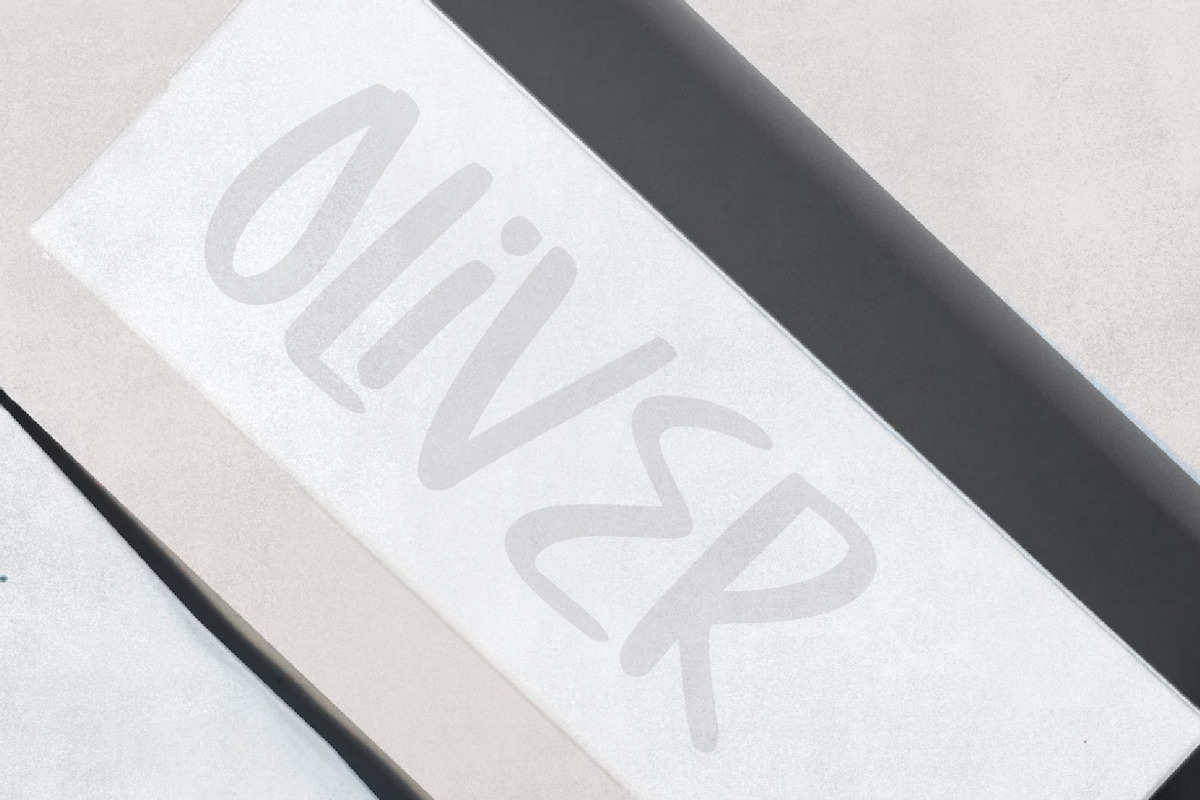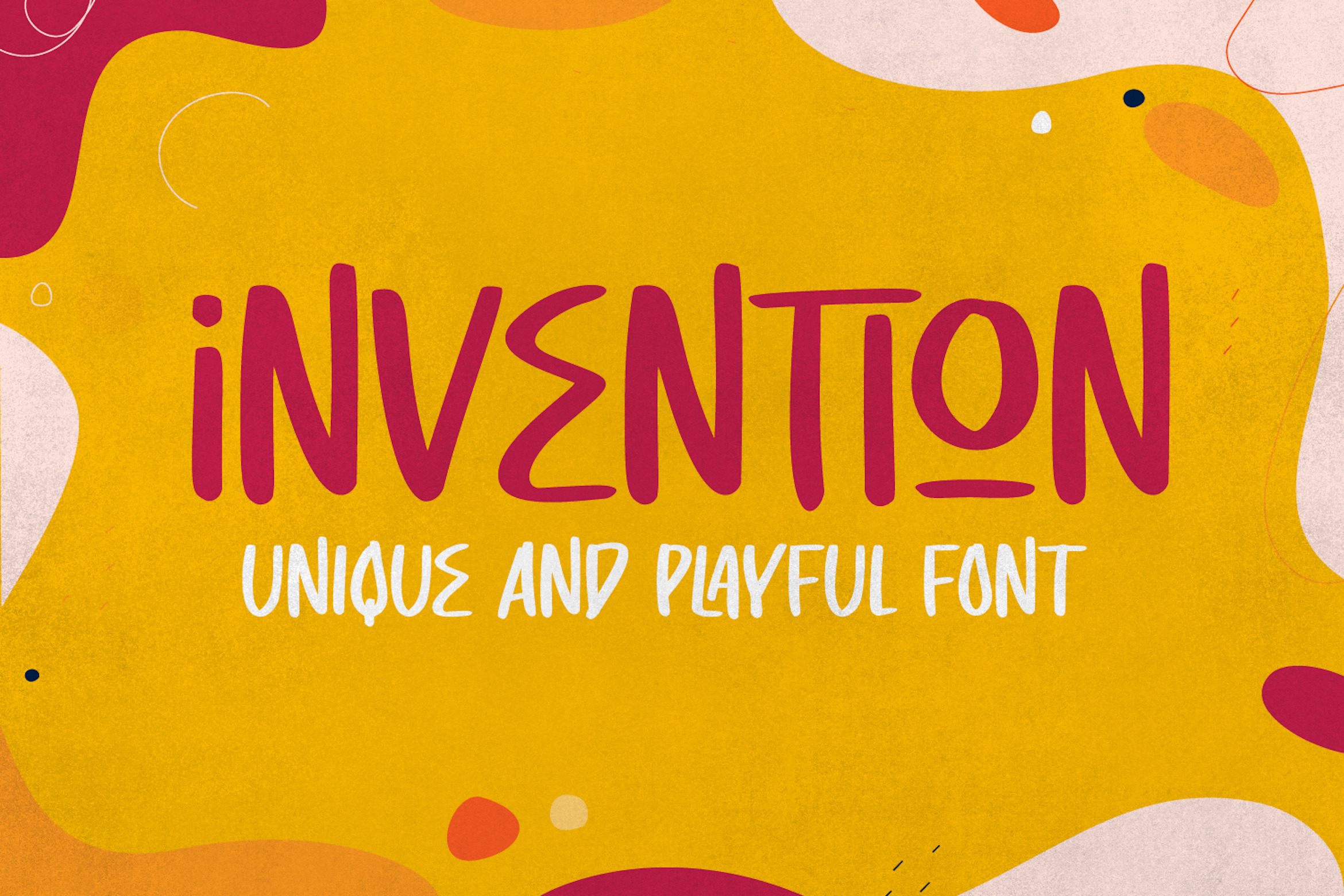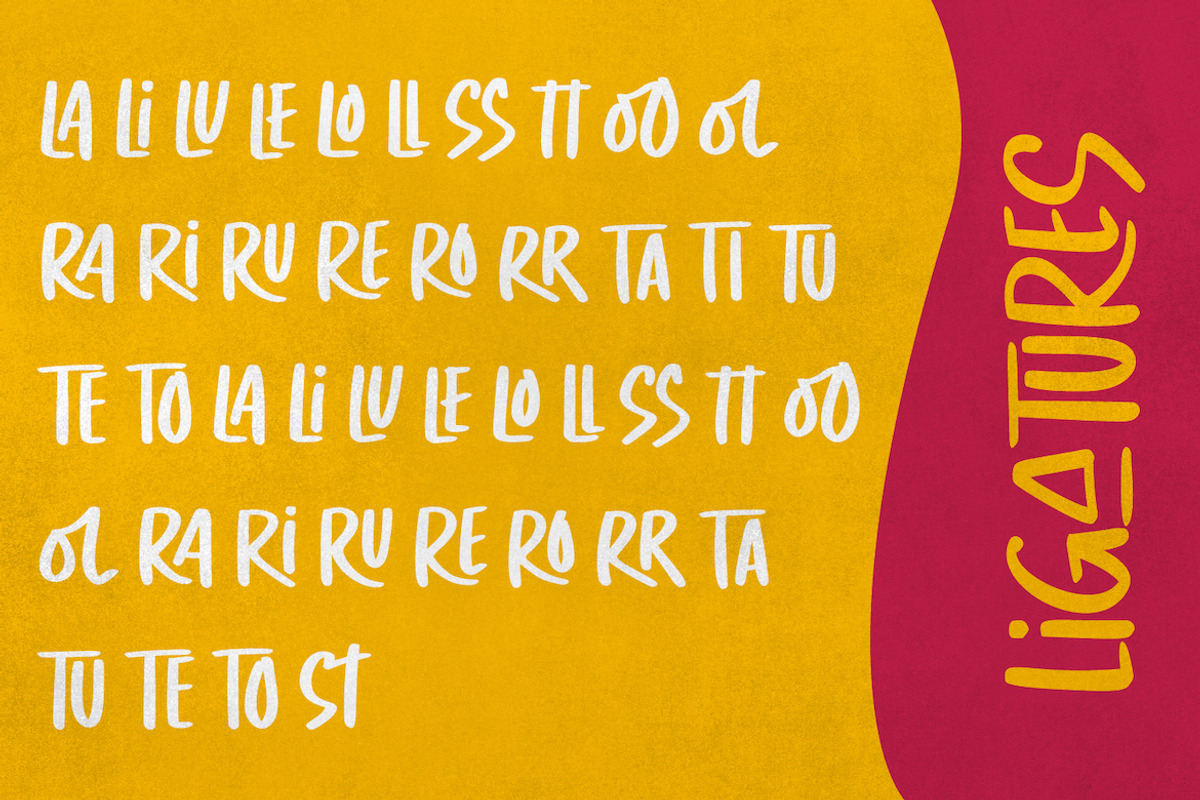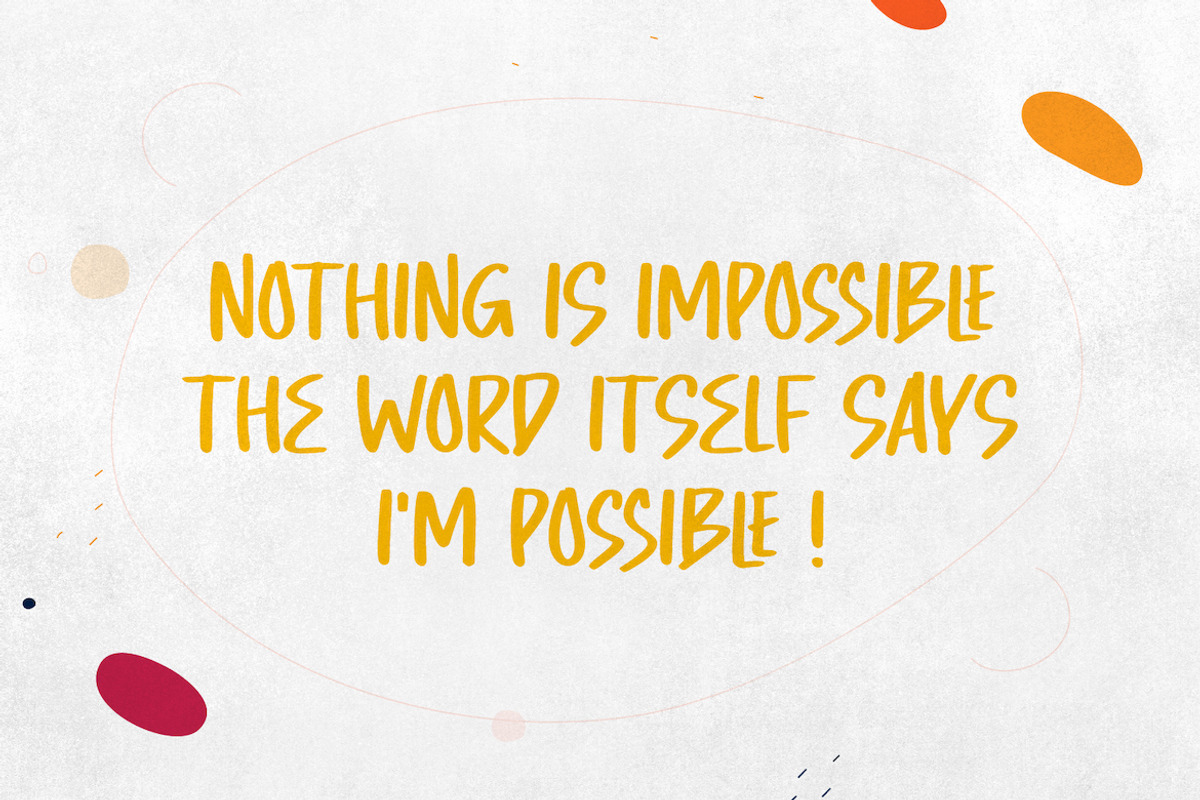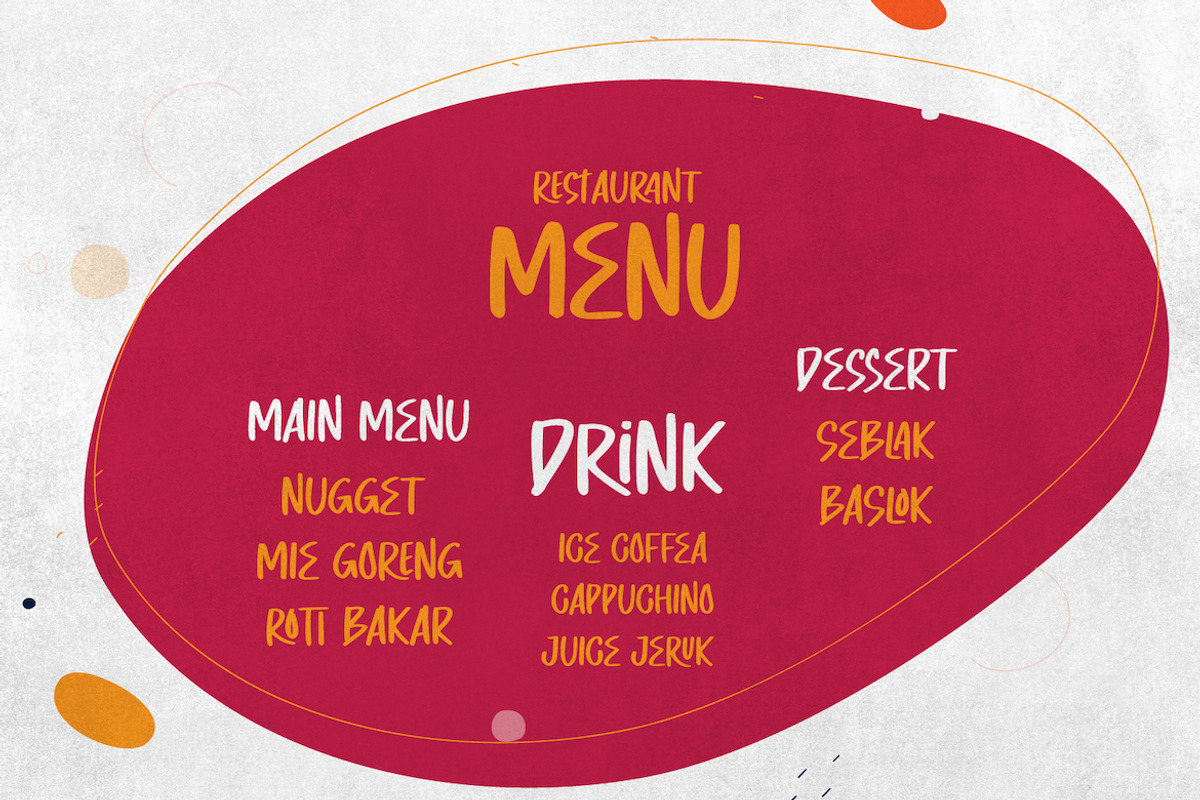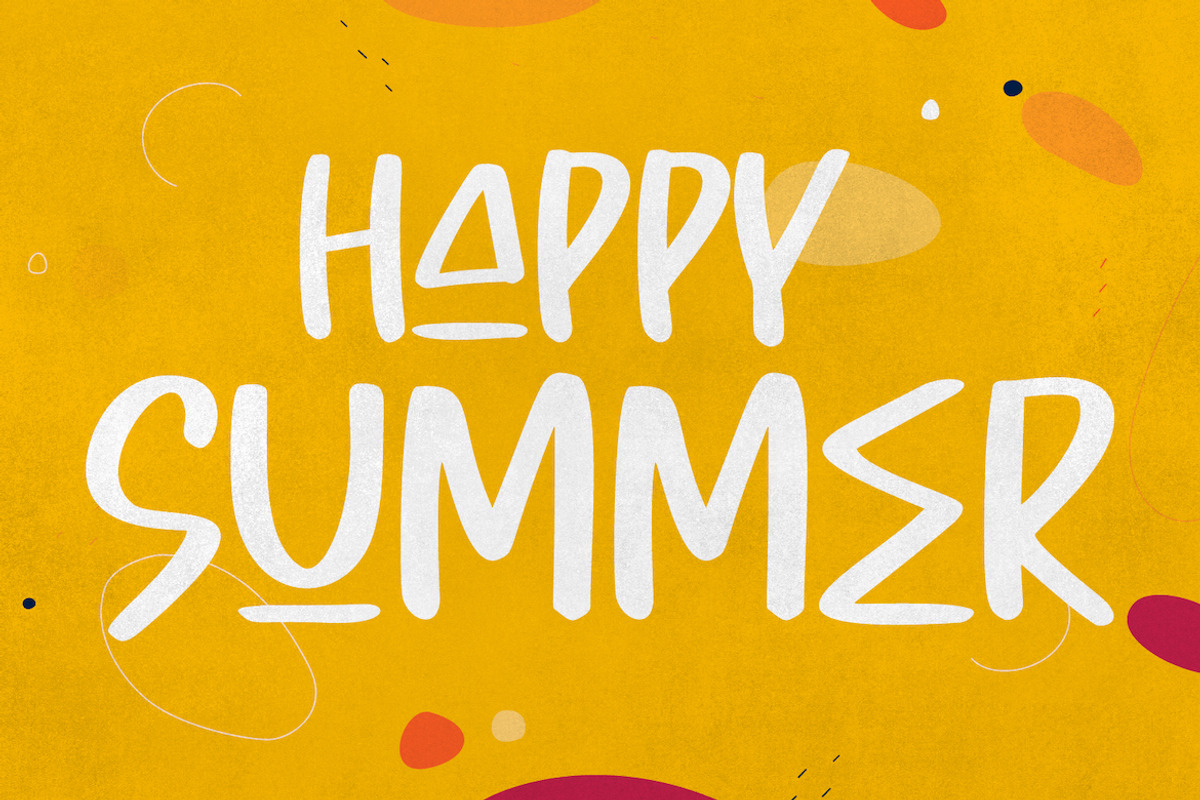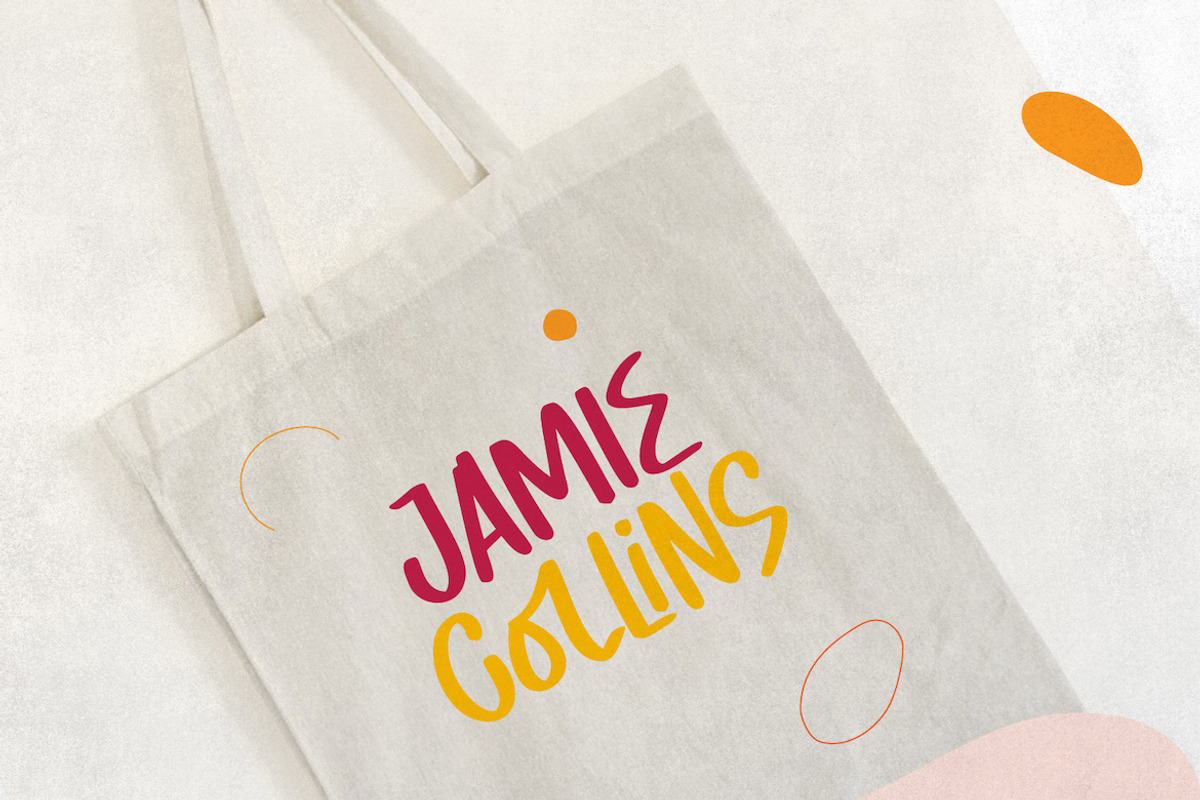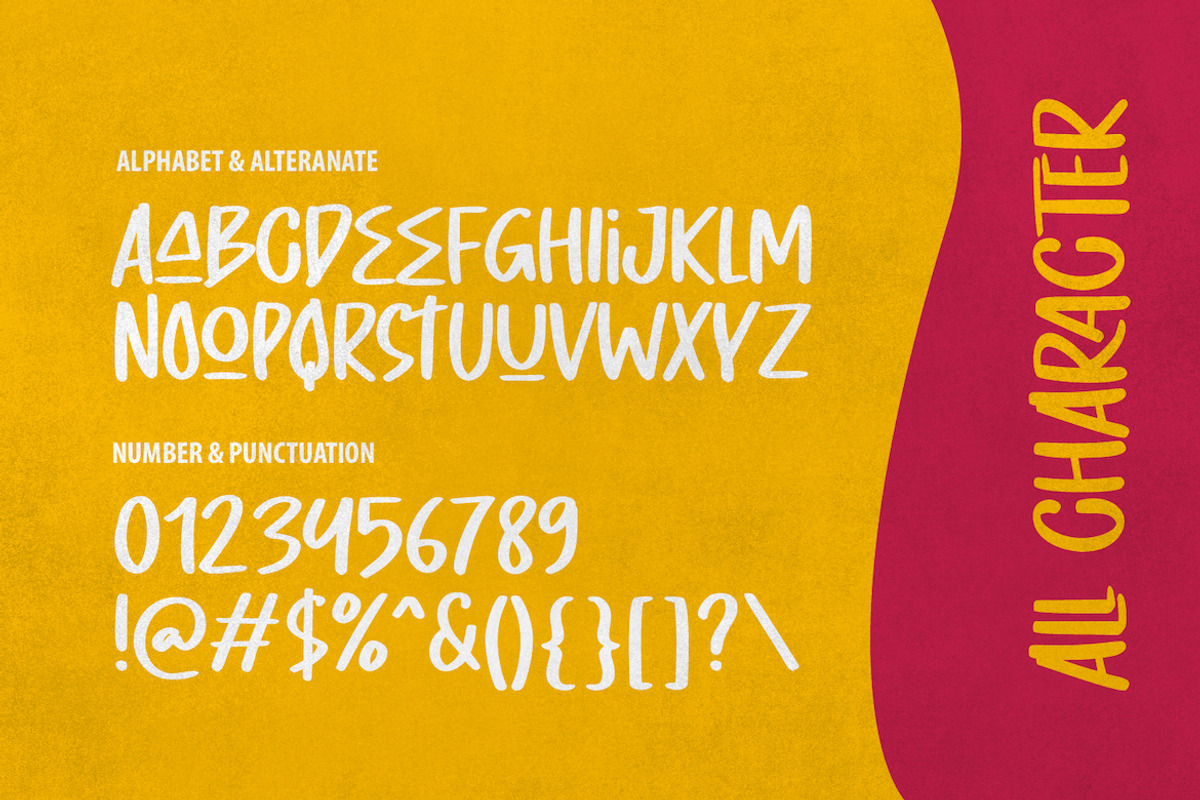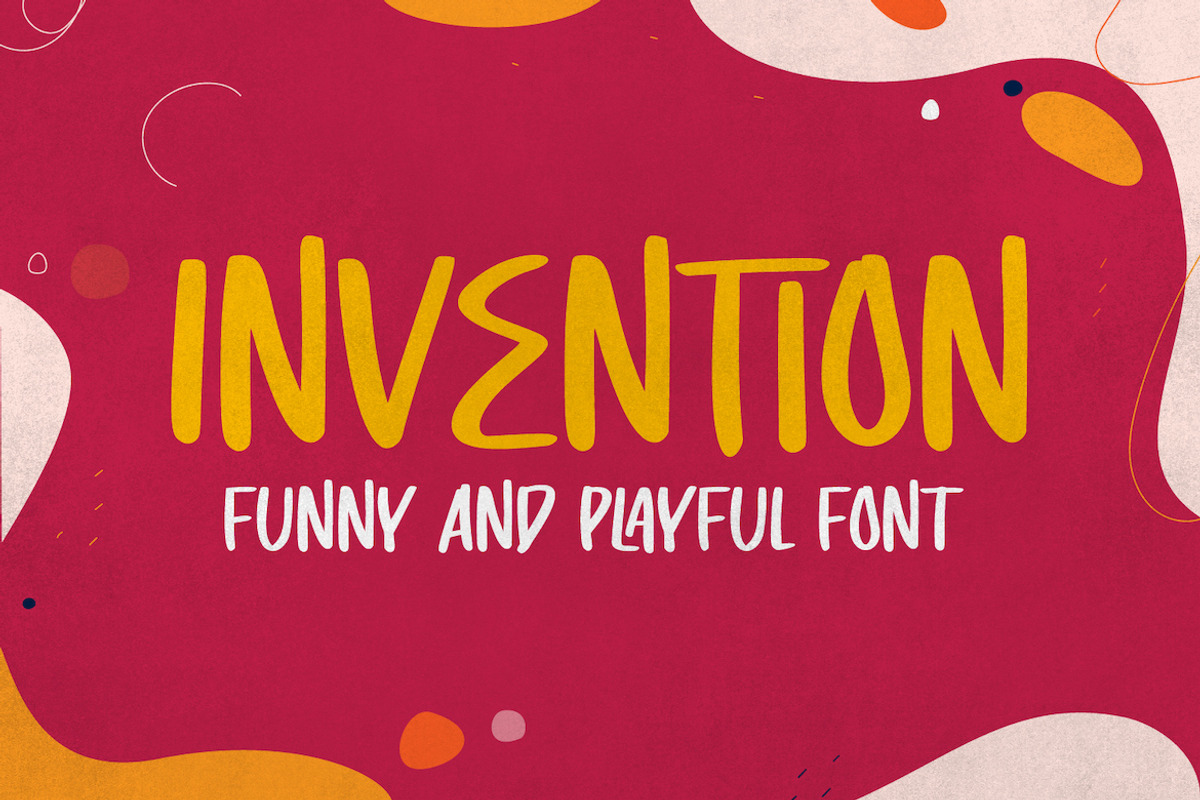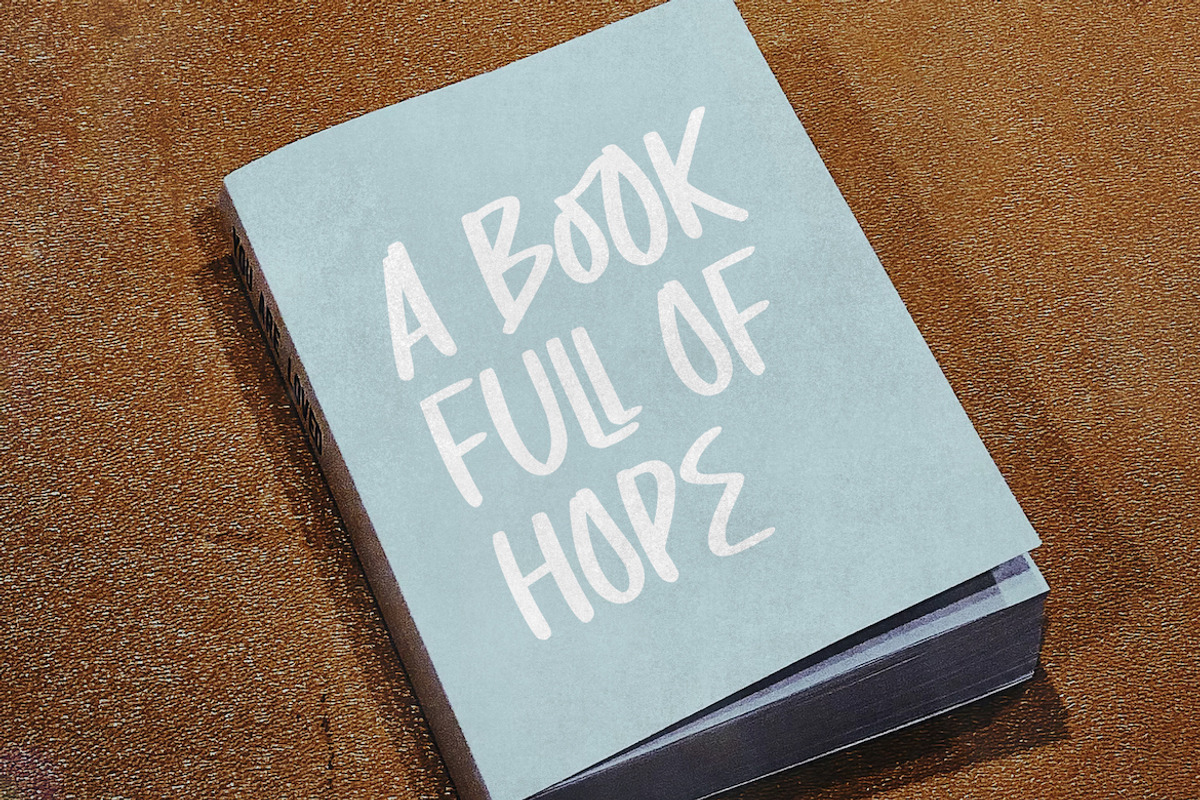
Invention - Unique Display Font
Introducing Invention Font, a truly unique and powerful display font that will make your designs stand out. With its distinctive style, Invention adds a touch of creativity and originality to your projects. This font is perfect for making a bold statement and capturing attention. With both uppercase and lowercase letters, numbers, and punctuations, Invention offers versatility in your designs. It supports multilingual characters, allowing you to reach a global audience. The font is PUA encoded, enabling easy access to all the amazing glyphs and design elements. Unleash your creativity with Invention Font and create captivating and memorable designs that leave a lasting impact.